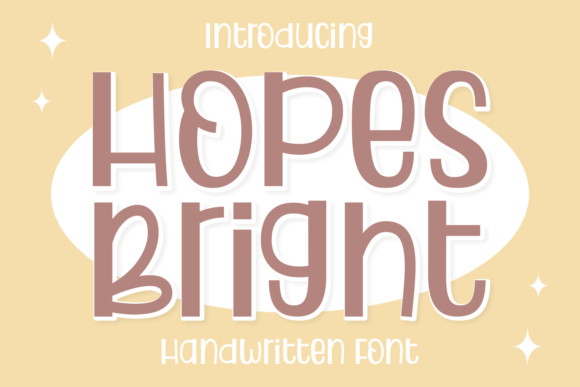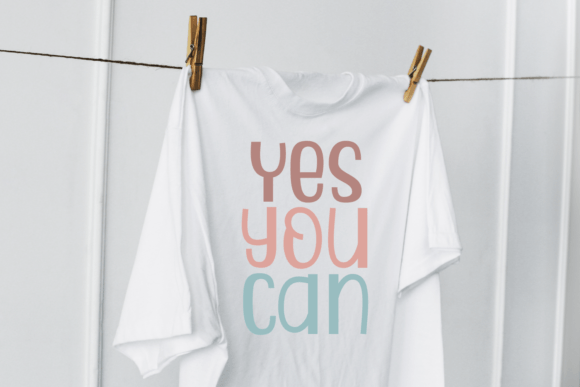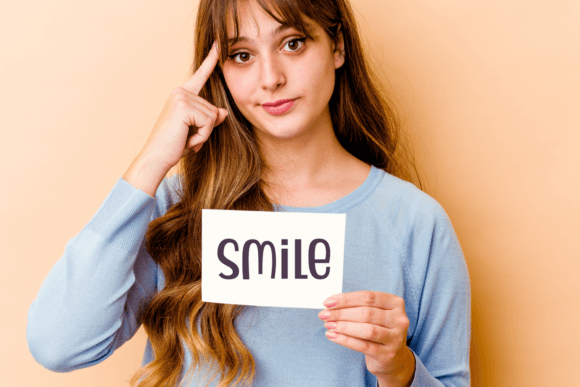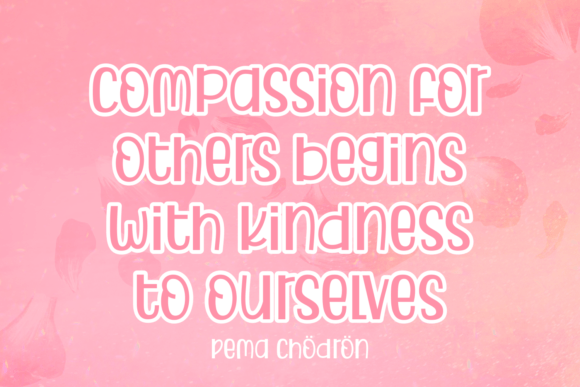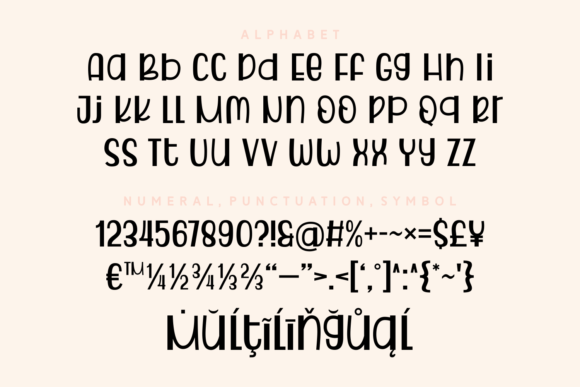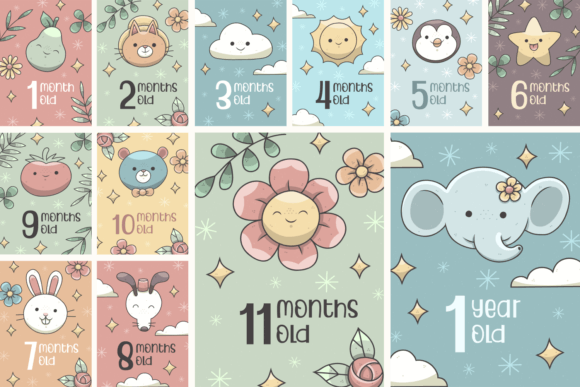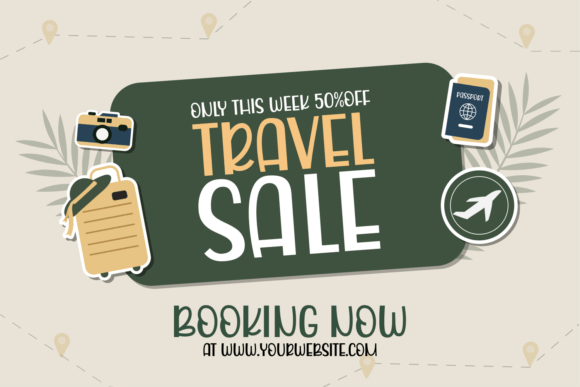
Hopes Bright
About Hopes Bright
Hopes Bright is an original and exquisite handwritten font, designed to bring cheer. It embodies joyfullness and is the perfect choice for any project that comes up in your mind.